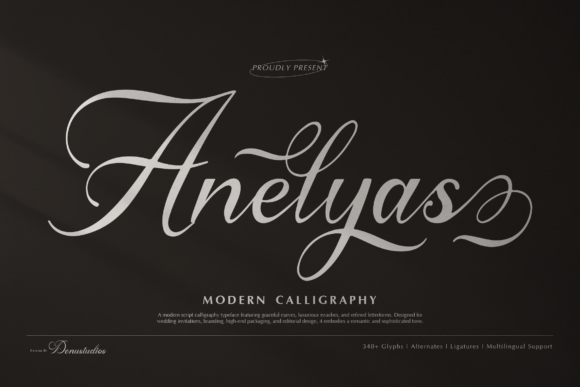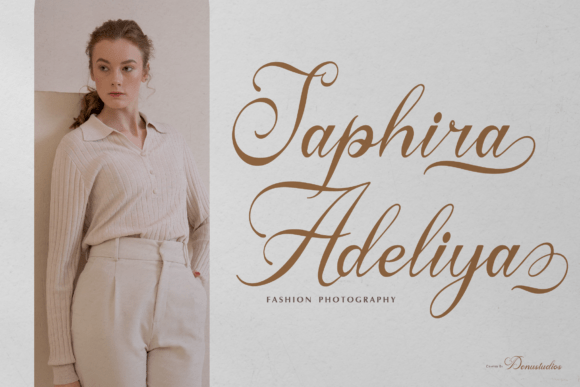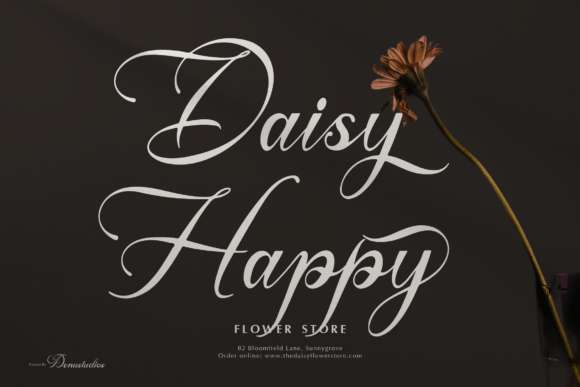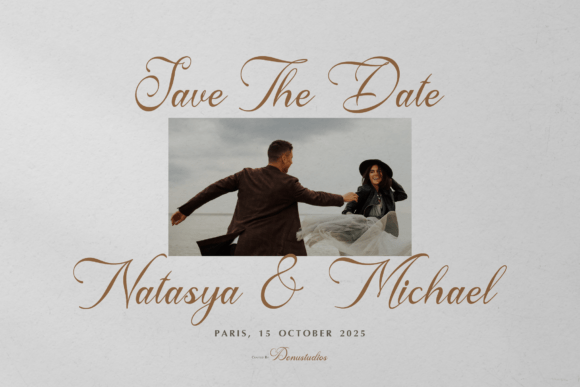
Anelyas Font: Elegant Calligraphy Script for Wedding & Branding
About the Anelyas Font
The Anelyas Font is here to transform your projects with its distinctive character and style. Anelyas is a luxurious, modern calligraphy font that brings elegance and romance to every letter. With its graceful curves, flowing swashes, and refined details, Anelyas is perfect for wedding invitations, upscale branding, packaging, and editorial design. This script typeface includes over 340 glyphs, alternates, and ligatures, offering plenty of creative flexibility while maintaining a polished, high-end look. If you want your design to feel timeless and sophisticated, Anelyas is the perfect signature touch.
Anelyas Font Usage Examples
Anelyas Font Example